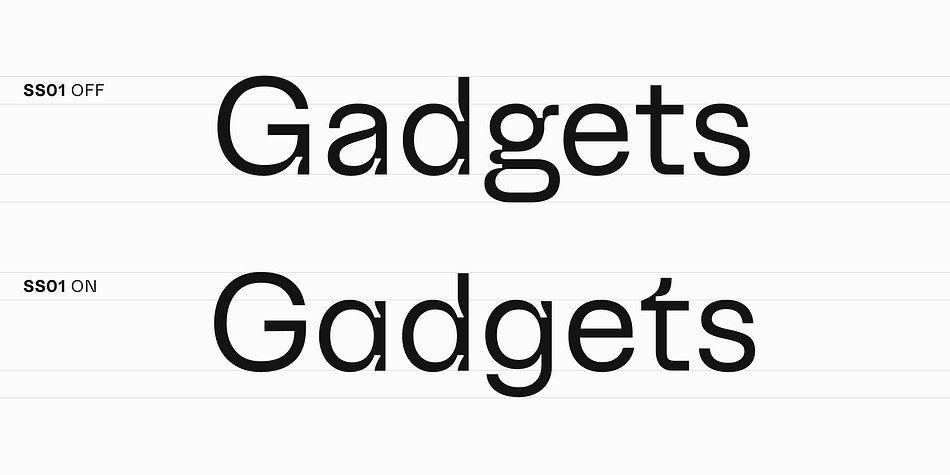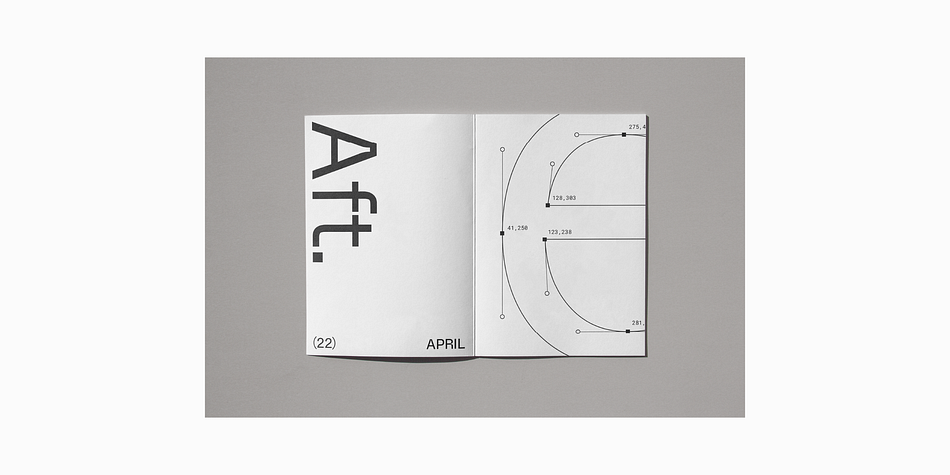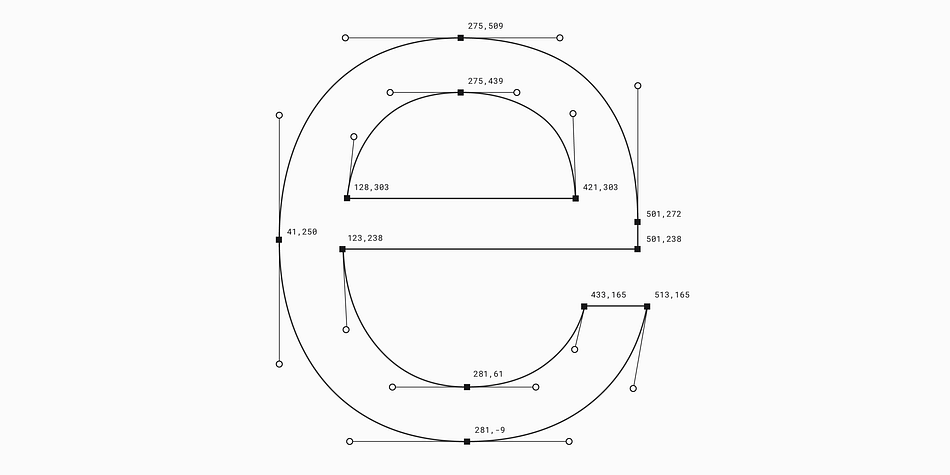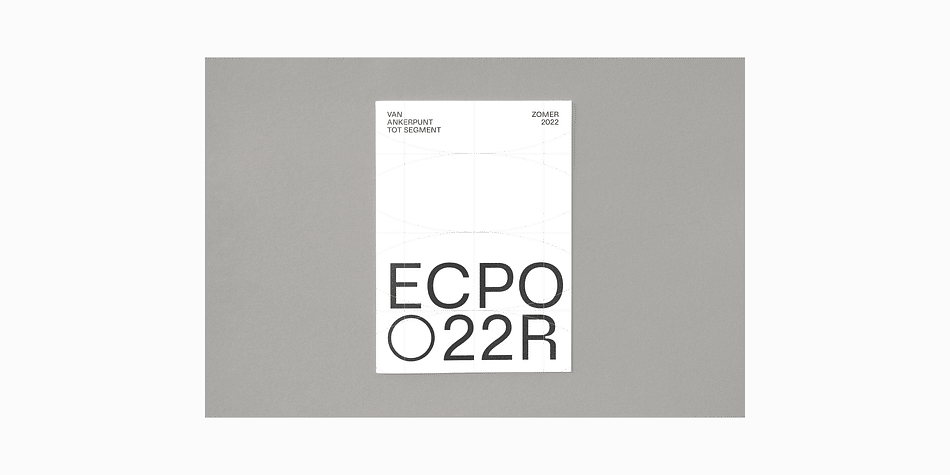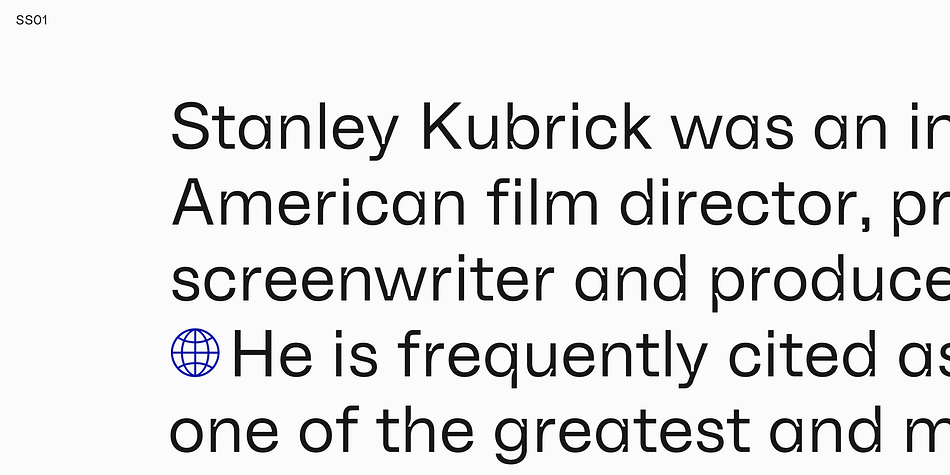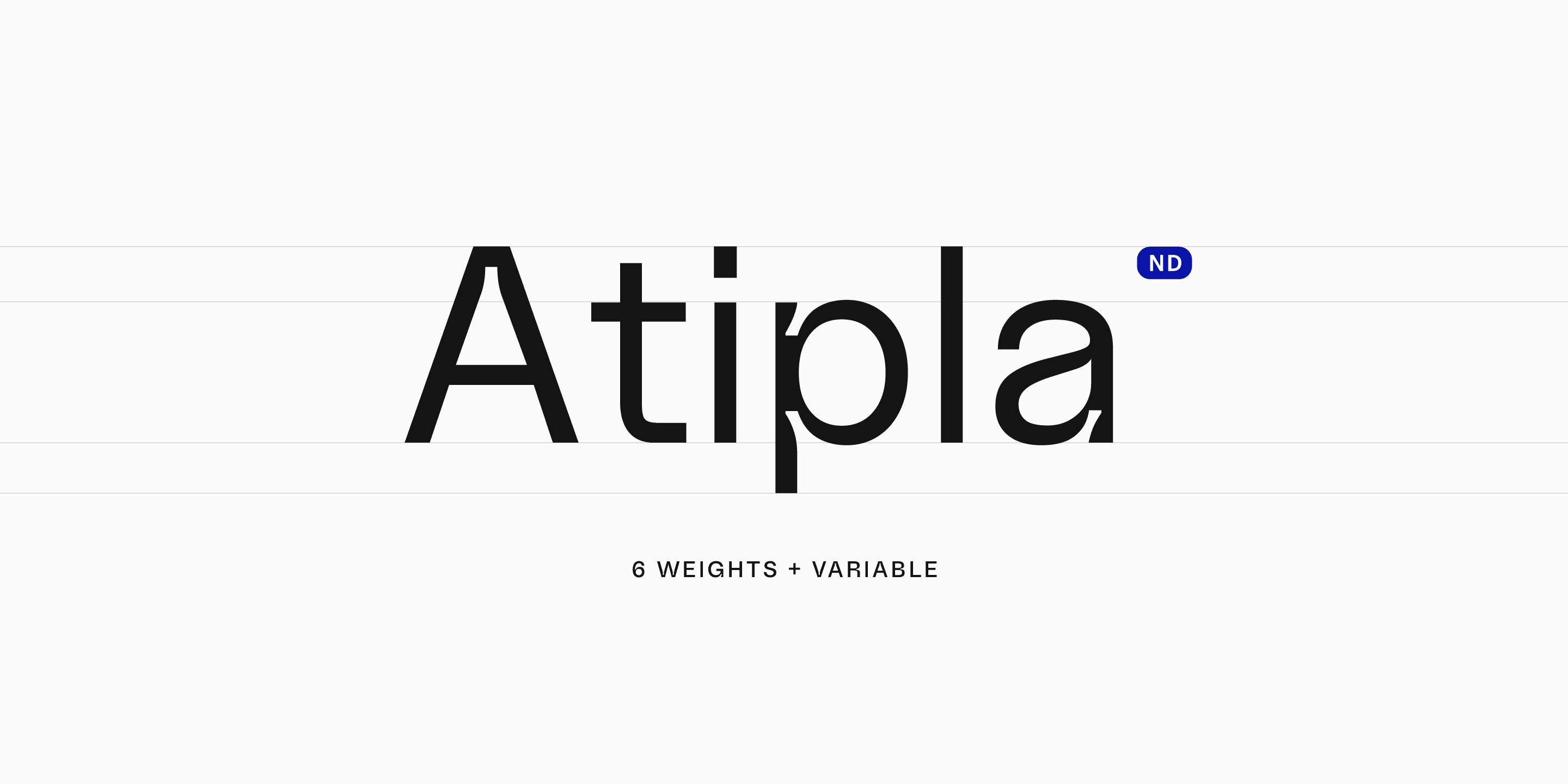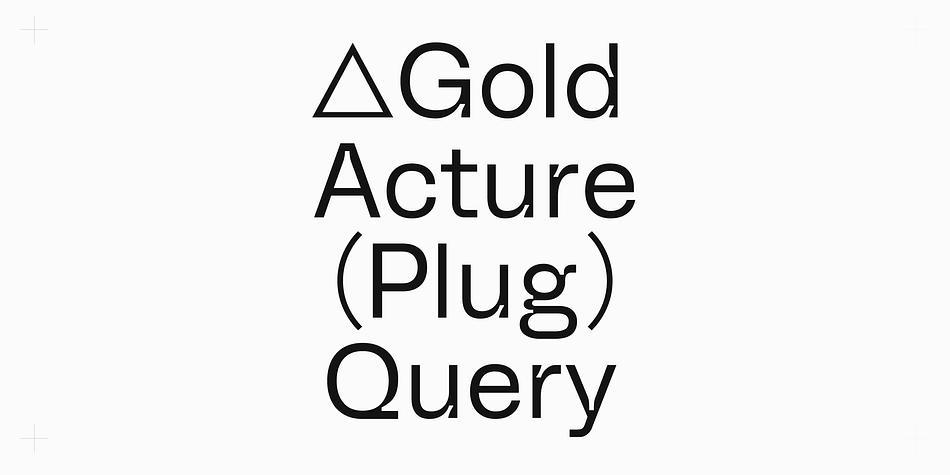
Atipla ND
Designed by Nicolas Deslé, Atipla ND is a sans serif font family. This typeface has six styles and was published by Nicolas Deslé.
Atipla ND is a contemporary sans serif typeface. It works best at large sizes, with softened ink traps that pair legibility with aesthetic, while its strict horizontal and vertical terminals give it a rigid yet friendly appearance. The typeface contains a stylistic set, case sensitive forms, symbols and arrows, and it covers all Latin Extended-A languages.